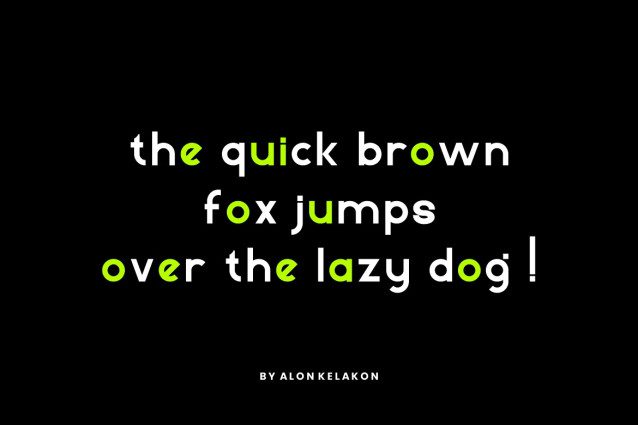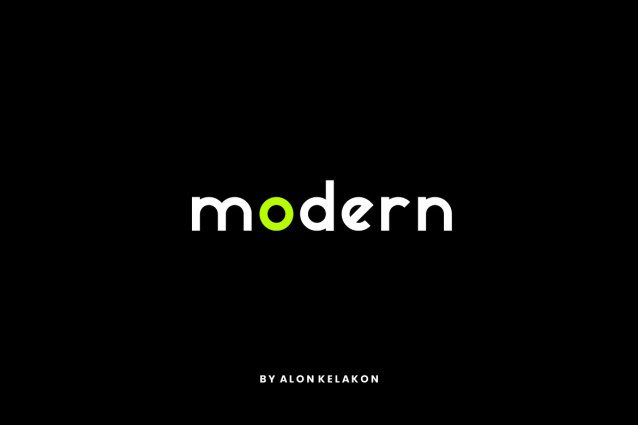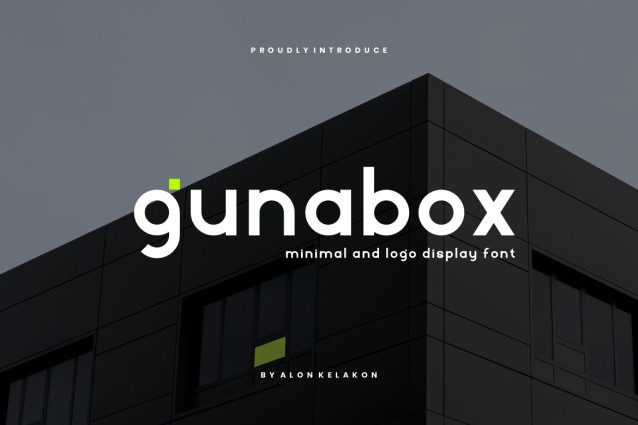
Gunabox Font
Gunabox Font – Minimal and Logo Font Font is unique. Ready to use for your design like labeling, movie scene, poster, movie title, gigs, album covers, logos, and much more.